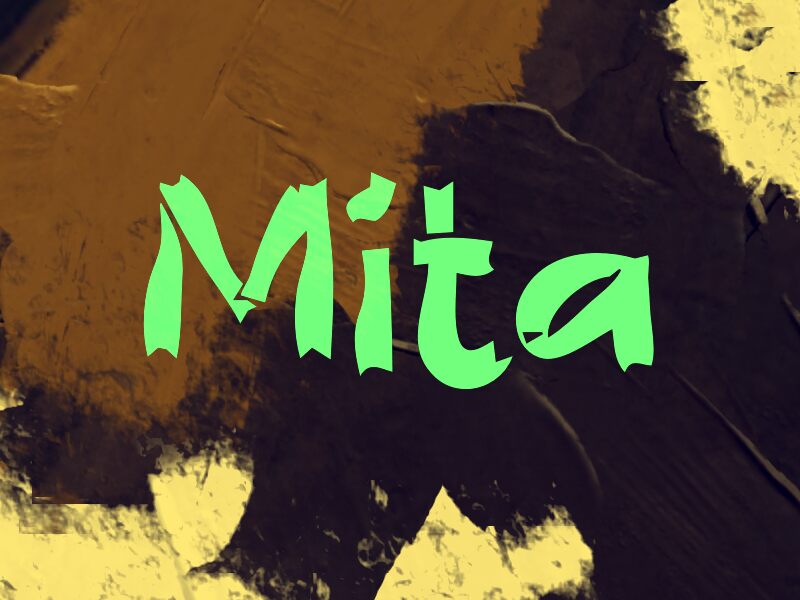
Mita by Wep is a free distorted display font with a torn, cut-paper attitude. The letters feel snipped and bent rather than drawn cleanly, mixing sharp wedges, uneven edges, and chunky curves into something that reads like handmade collage with a slightly gothic kick.
It fits poster work, album art, zine covers, title cards, and short branding where the lettering itself can carry the mood. As a free font, Mita makes the most sense in brief hits - a wordmark, a cover line, a menu title, or a monogram - because those ragged shapes and abrupt angles do the talking fast.
Mita